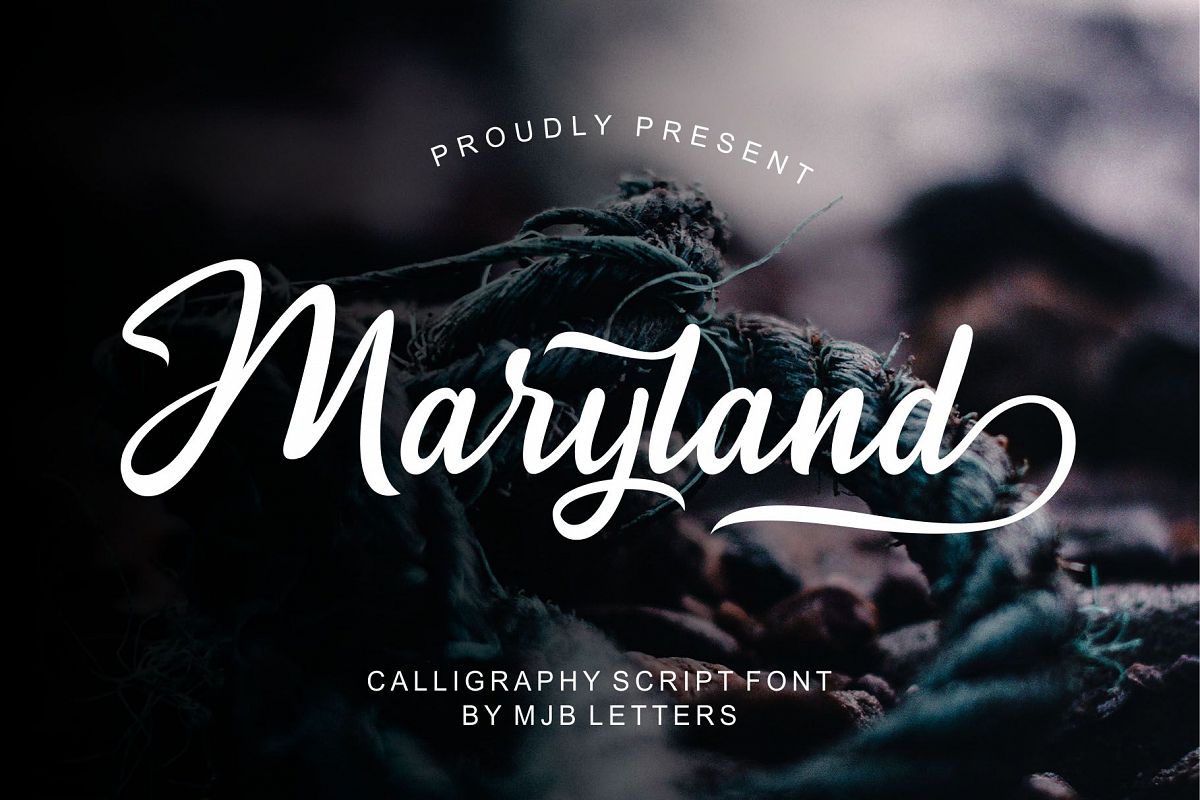
Maryland Calligraphy Script
Introducing Maryland !
Maryland is a bold and strong script font. carefully crafted with calligraphy. that contains many stylistic alternate and swashes that will help you to create your own customized design.
this font has unique and perfect for branding (Logotype) and other design needs, like for quotes, merchandise, packaging, business card and many other project.
with start and ending swash, and middle swash for some letters, this is very easy to use, just rely on your creativity!
This font was impressed cool and elegant.
• Ligature & alternates
• Standard Uppercase and Lowercase Alphabet
• Numbers and Punctuation
• Stylistic Set
• Open Type Features